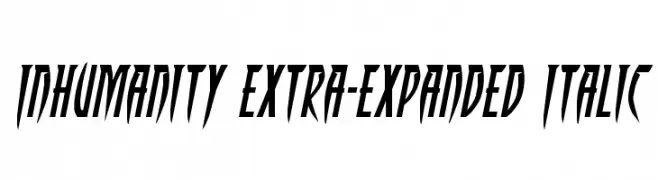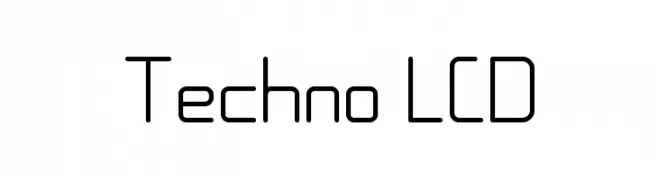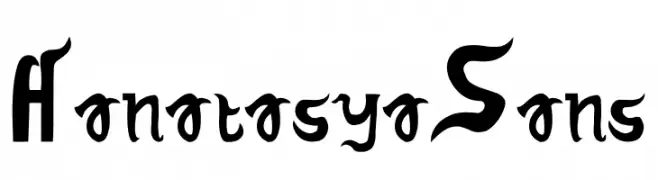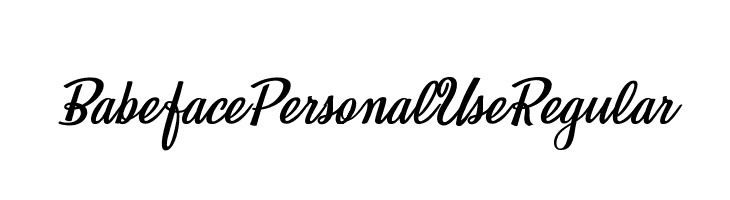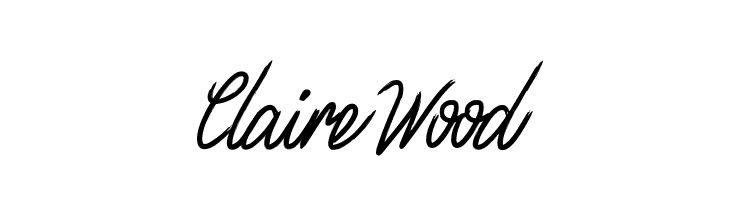
A bold, extra-expanded italic font with sharp angles and dynamic energy.
A modern, handwritten script font with elegant, flowing letters.
A bold, geometric font with a futuristic and industrial design.
A dynamic and elegant script font with fluid, italicized letterforms.
Vintage gentleman-themed icon set with bold, high-contrast silhouettes.
A fluid and expressive handwritten font with elongated, slanted strokes.
A modern, geometric font with a digital, LCD-inspired design.
A distressed, textured font with a vintage, industrial feel.
A modern, medium-weight italic sans-serif font with a clean and dynamic style.